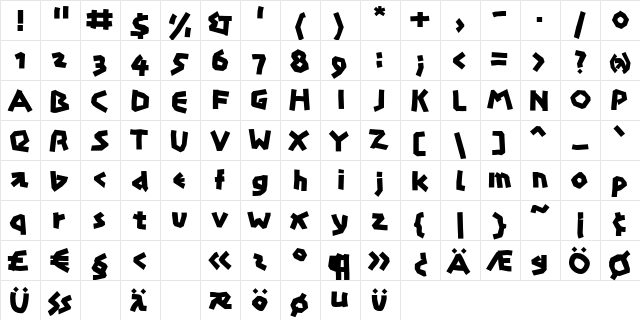
Papercuts Regular Free Font
Papercuts Regular
Design Context for Papercuts
Papercuts is a composed and adaptable typeface that performs quietly and consistently across a wide range of design contexts.